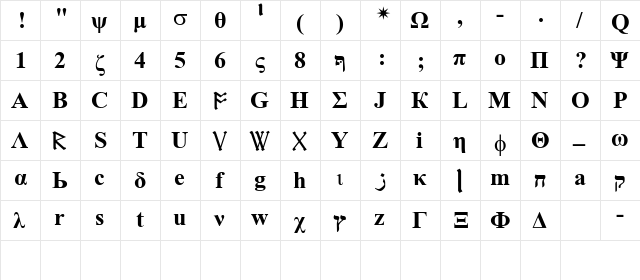
martian_bold bold
Design Context for martian_bold Typeface
martian_bold takes a measured approach to typography — its balanced proportions and neutral character make it a reliable workhorse for both digital and print work. The heavy weight commands attention and anchors typographic hierarchies.